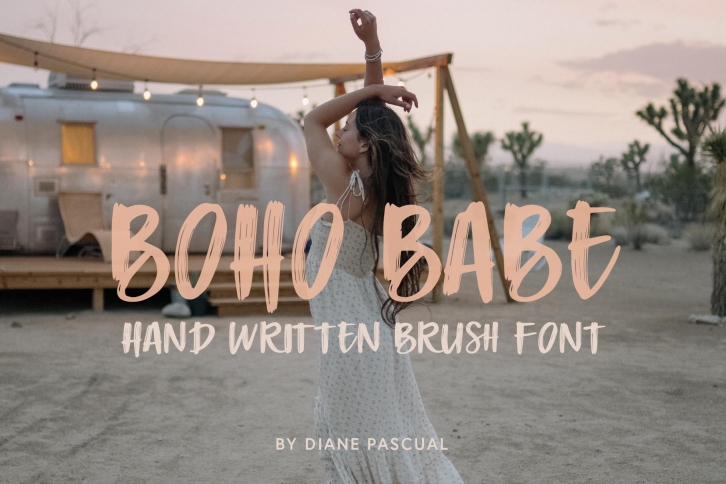
Boho Babe is a trendy and unique font with an authentic style. It was designed by The Gypsy Goddess and it's a great choice for creative people who need such a font. It was released on June 23, 2019 and the file size is 6.56 MB. Boho Babe will add an organic vibe to any design idea!